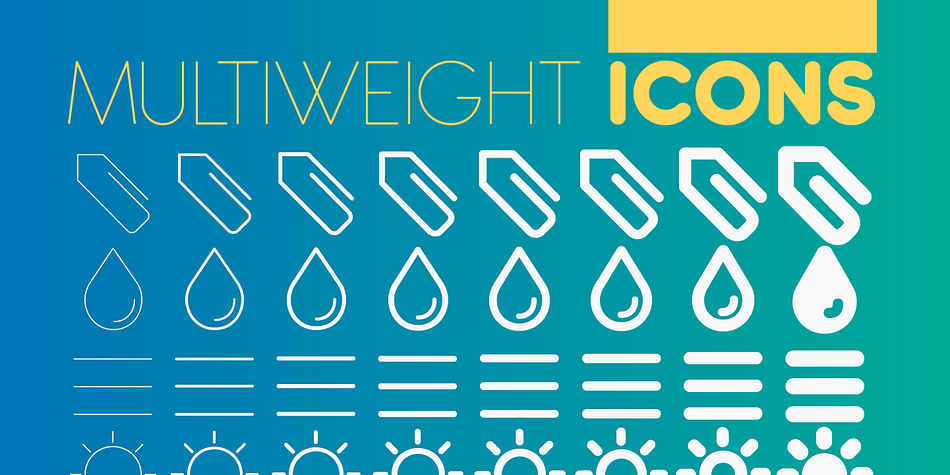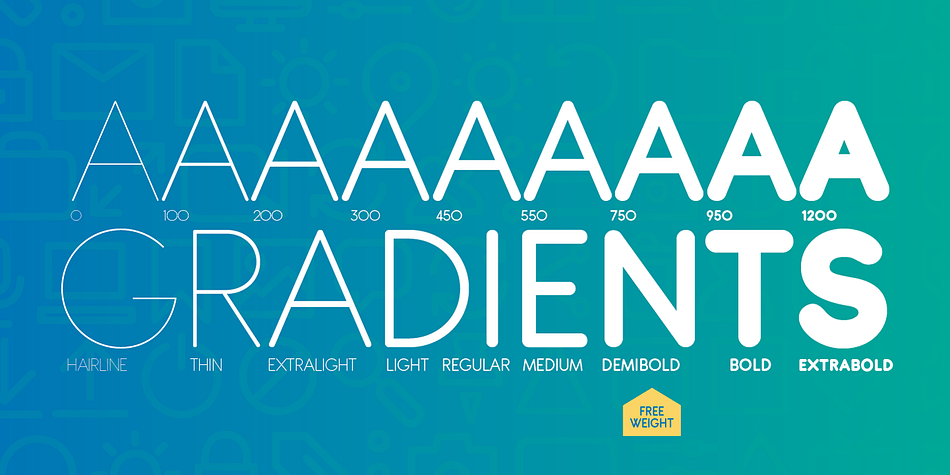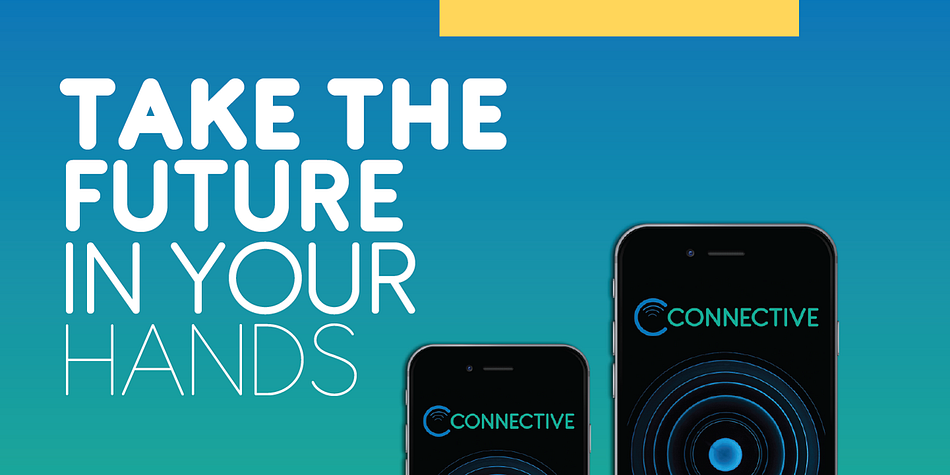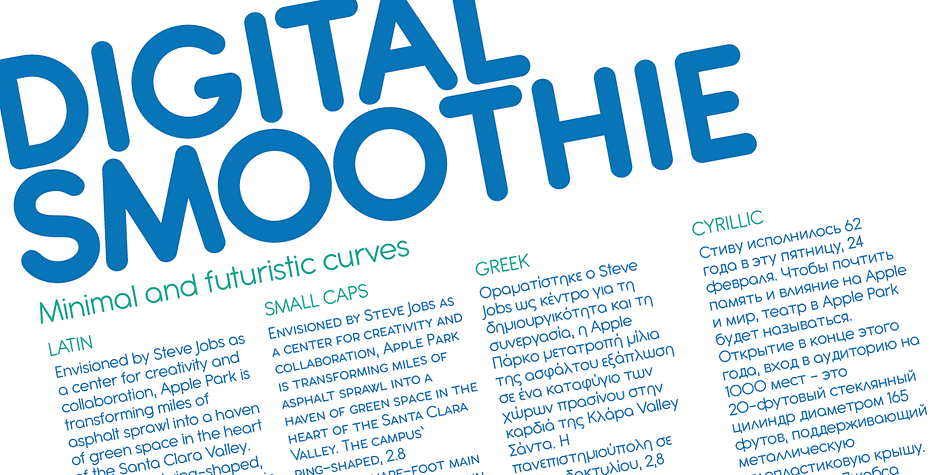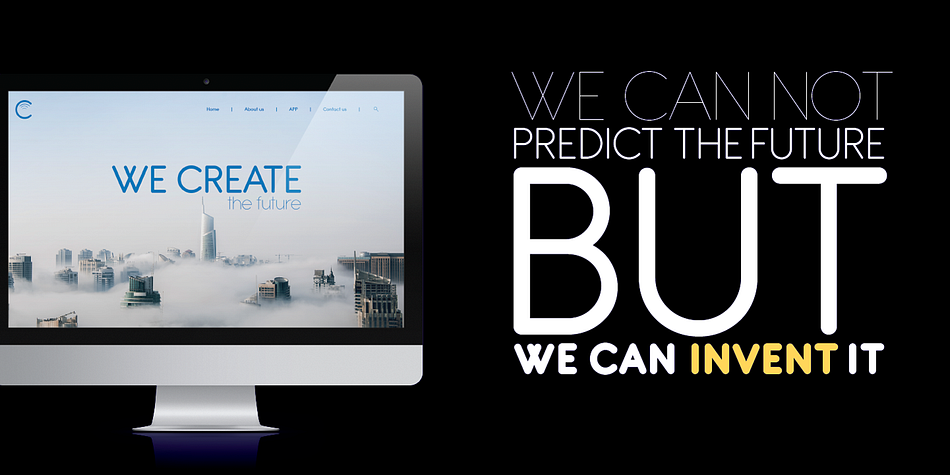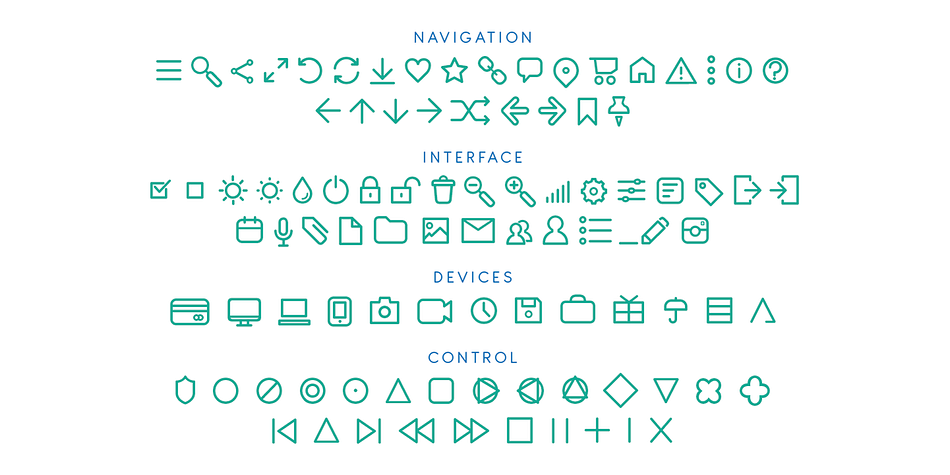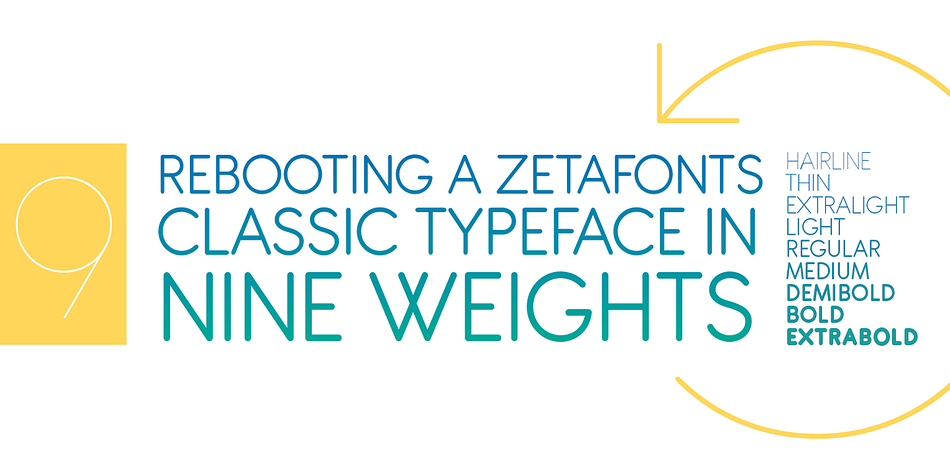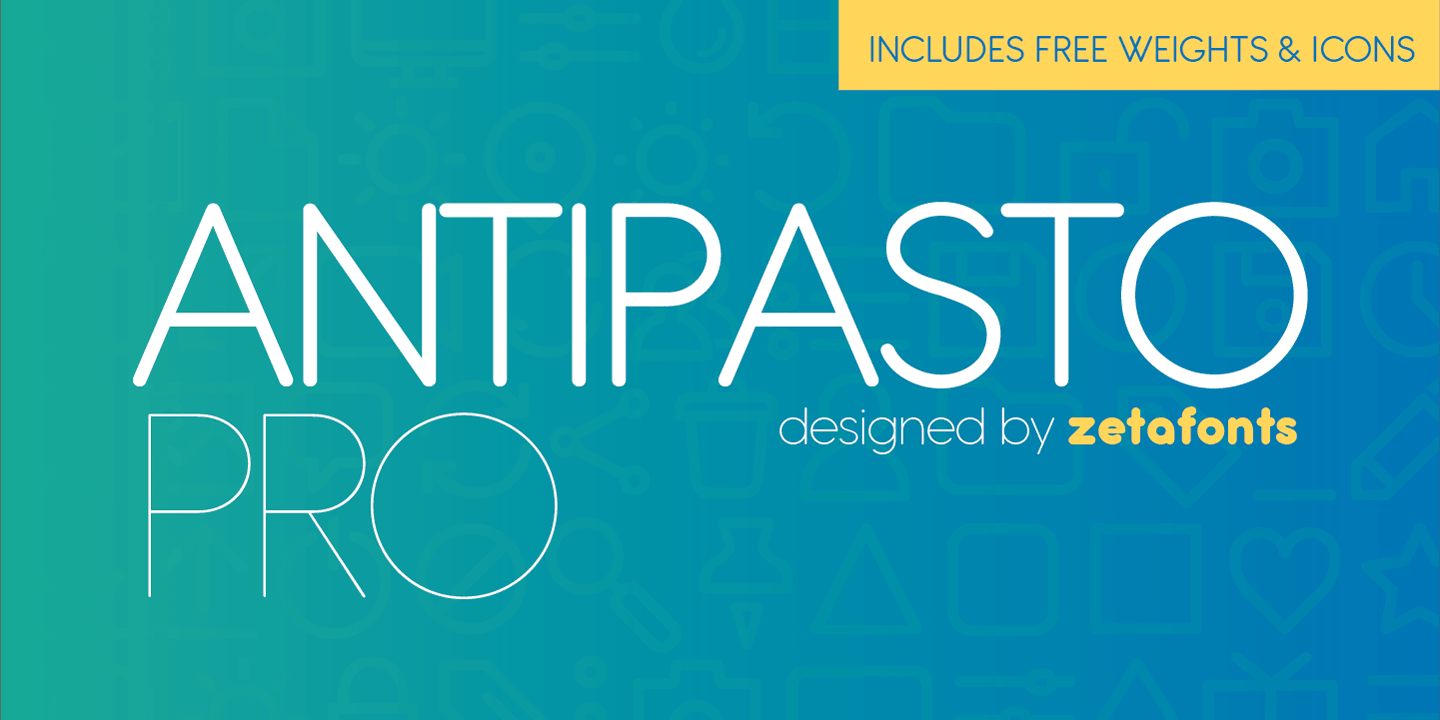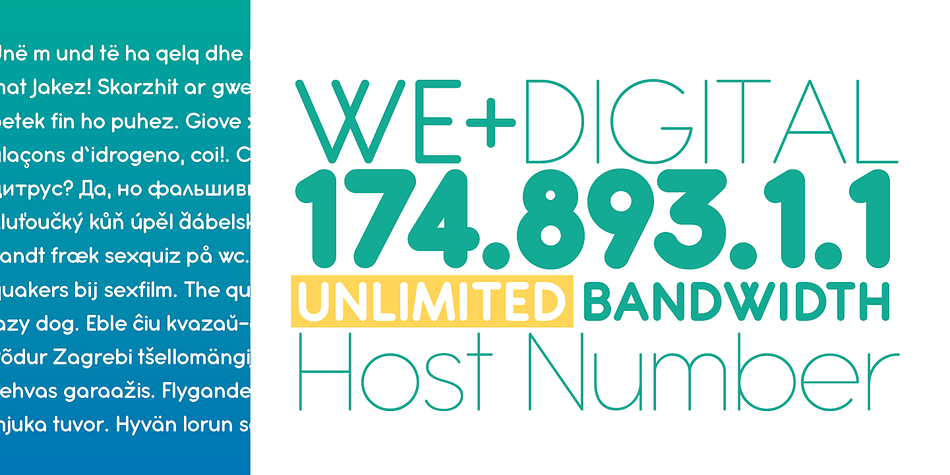
Designed by Cosimo Pancini, Antipasto is a sans serif and dingbat font family. This typeface has seventeen styles and was published by Zetafonts.
Antipasto is a geometric sans serif font designed by Cosimo Lorenzo Pancini. The original family of three weights has been revised and expanded in 2017 with Antipasto Pro that now includes cyrillic and greek characters, open type features (small caps and old style numerals), six new weights from the hairline to the extrabold and an icons set in 8 weights.